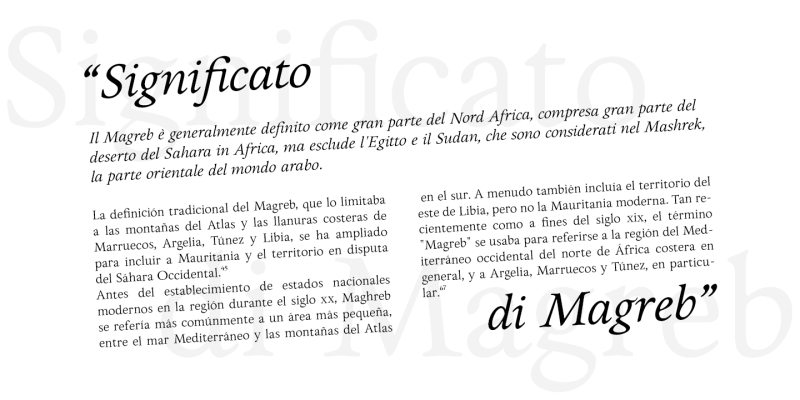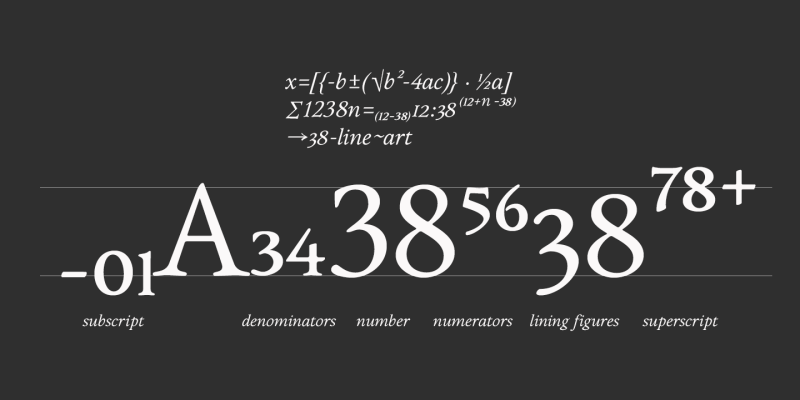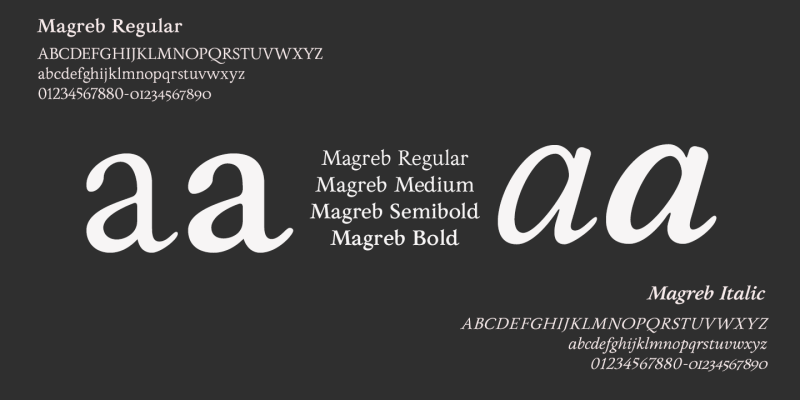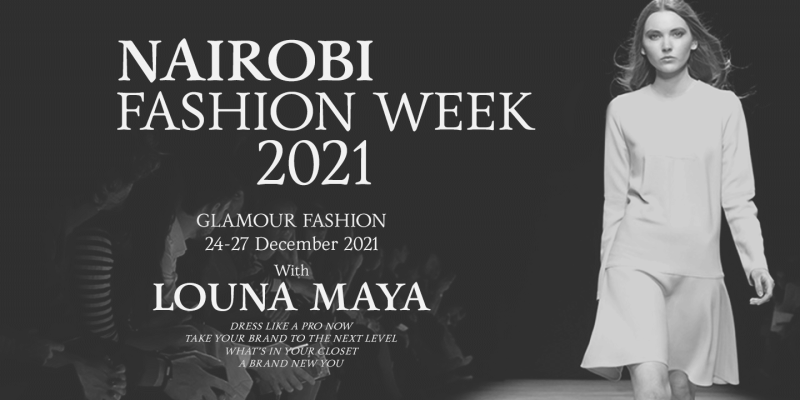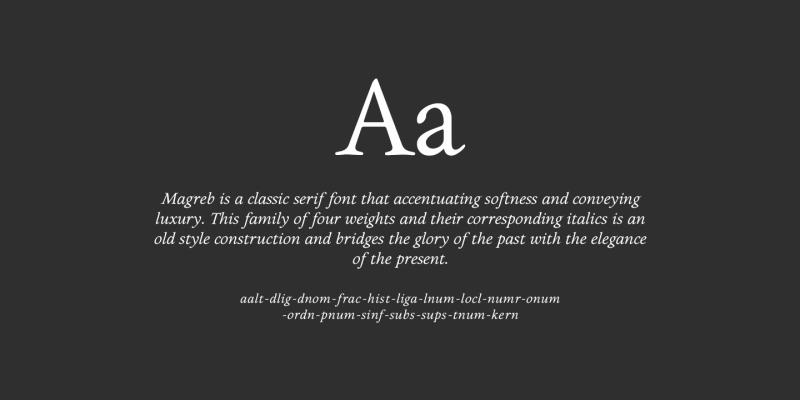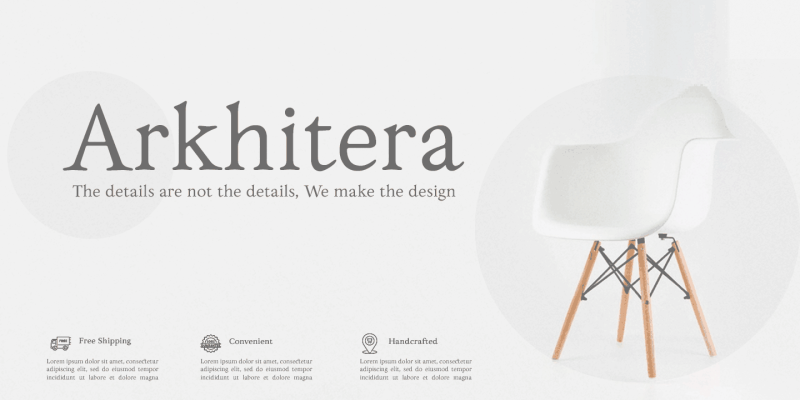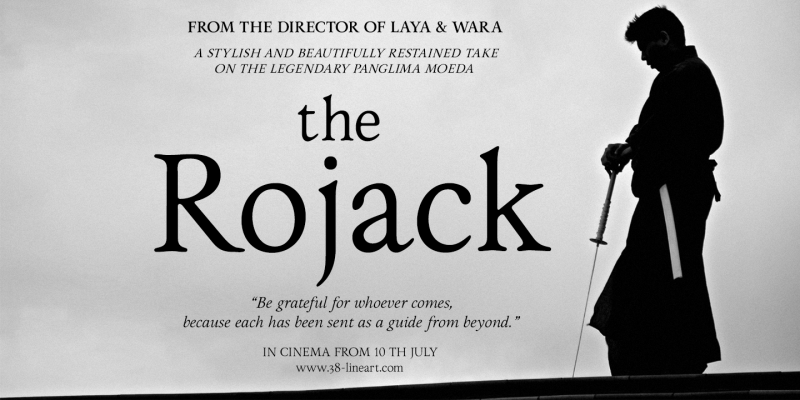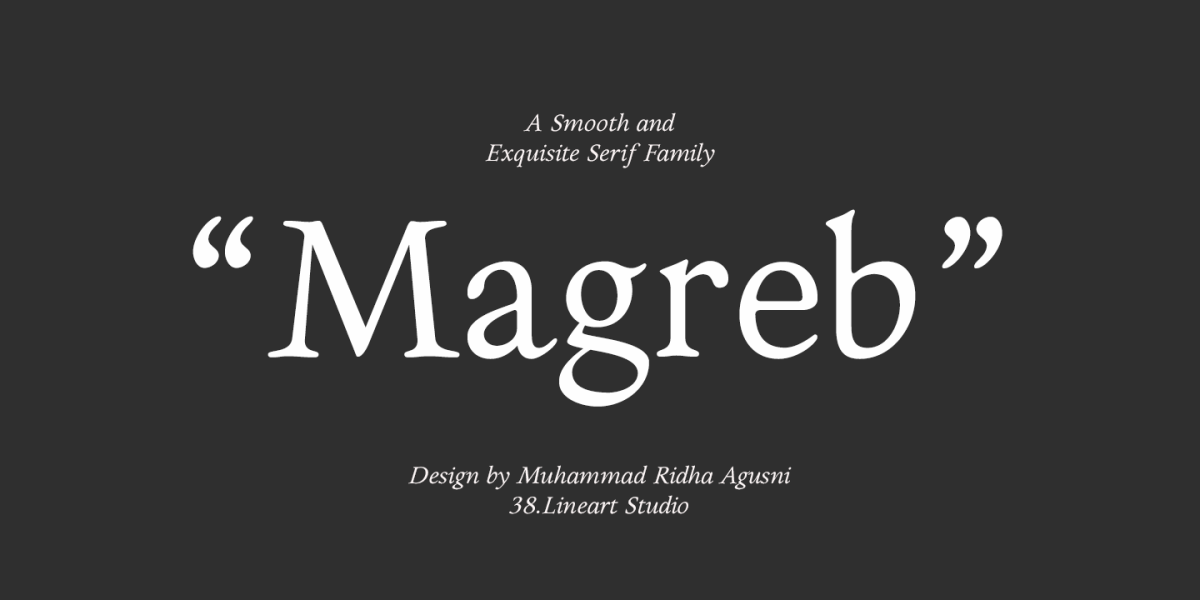
Magreb Font Family
Magreb is an elegant serif font based on Garamond, and De Venetis Styles that gives softness and luxury. This aged family of four weights and their accompanying italics…
Magreb is an elegant serif font based on Garamond, and De Venetis Styles that gives softness and luxury. This aged family of four weights and their accompanying italics style is historic and transforms the beauty of the past into the elegance of the present. The first step should be creating an ellipse with the brush tool with some incline to look like a calligraphy pen stroke. Then, it is time to draw all the serifs, smooth everything by extending the vectors, and soften each joint. Then, bold it from regular weight to weight bold. The Maghreb has increased the size of the Latin character set to support over 200 Latin-based languages. We widened the OpenType features to include superscript and subscript, the numerator and denominator, old-style figures, and lining figures.
Where Magreb Font Family works best
Magreb Font Family gives long-form text a classic, trustworthy rhythm — ideal for magazine spreads, annual reports and book interiors.
Pair Magreb Font Family with generous letter-spacing for wordmarks in fashion, hospitality, wine and jewellery branding.
Use Magreb Font Family for slide titles in Keynote, PowerPoint or Google Slides to add authority without looking dated.
What is Magreb Font Family good for?